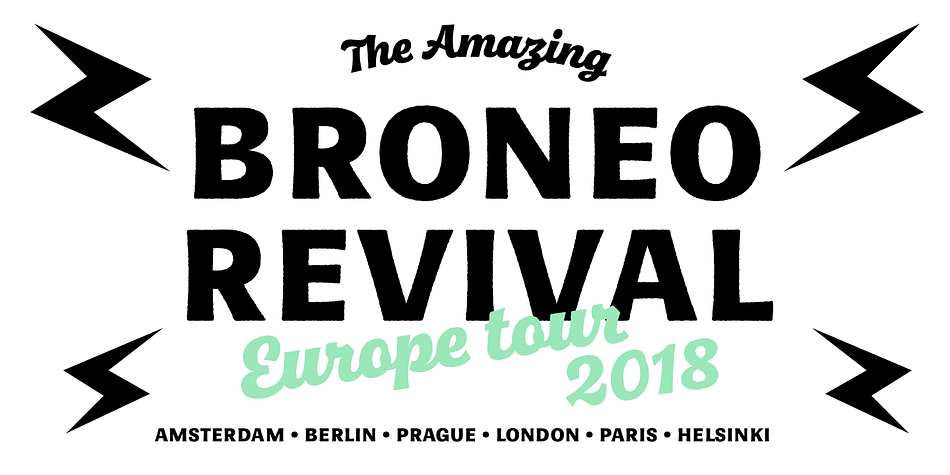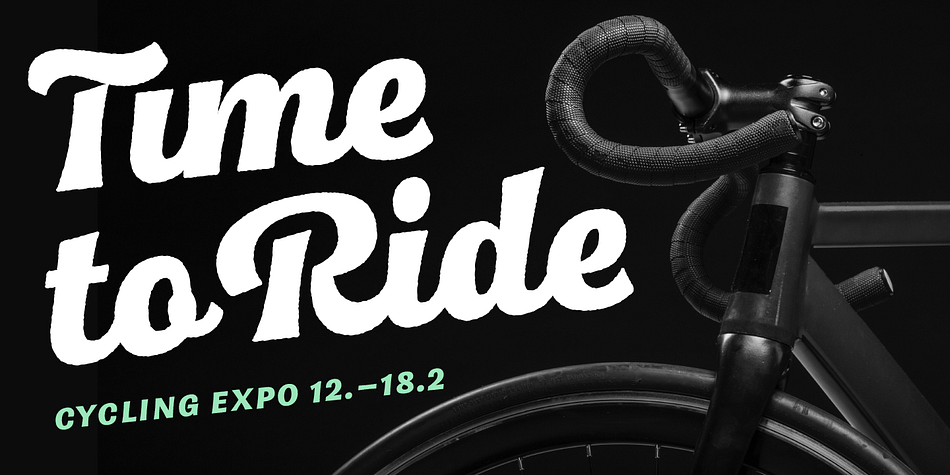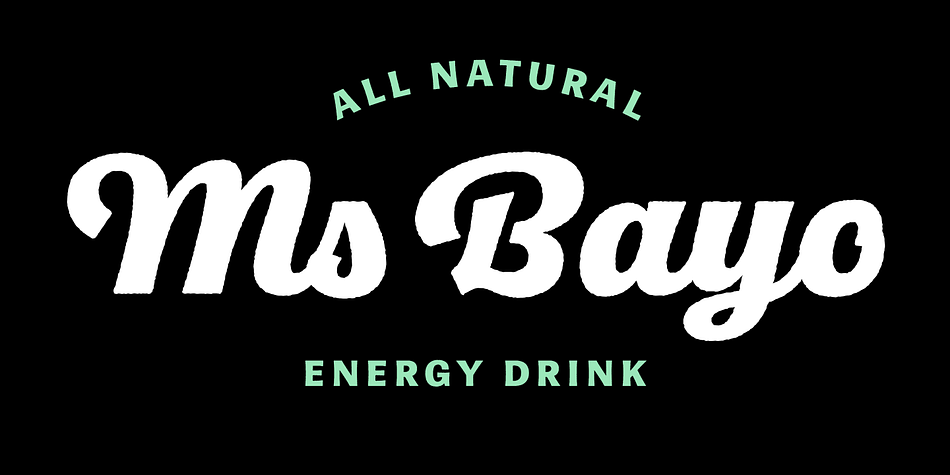
Quida Rough
Designed by Teo Tuominen, Quida Rough is a display sans, retro and script font family. This typeface has three styles and was published by LetterMaker.
Quida Rough is a textured display family with three styles; Regular, Italic and Script. The personality of the design comes the rough, worn outlines and concave vertical shapes, which are consistent through all styles. This makes them work together seamlessly.
Quida Rough Script is packed with opentype goodness such as swash caps, stylistic alternates, ligatures and ending forms for lowercase letters. All styles have an extended language support for most European languages.